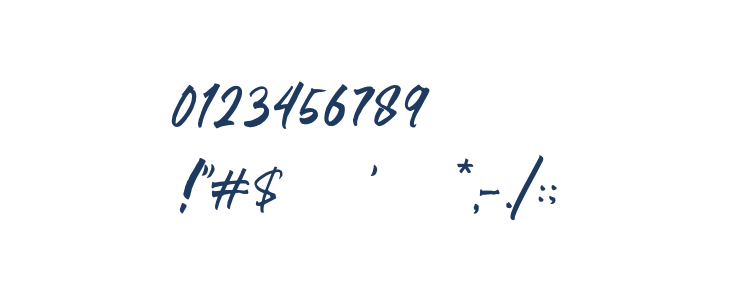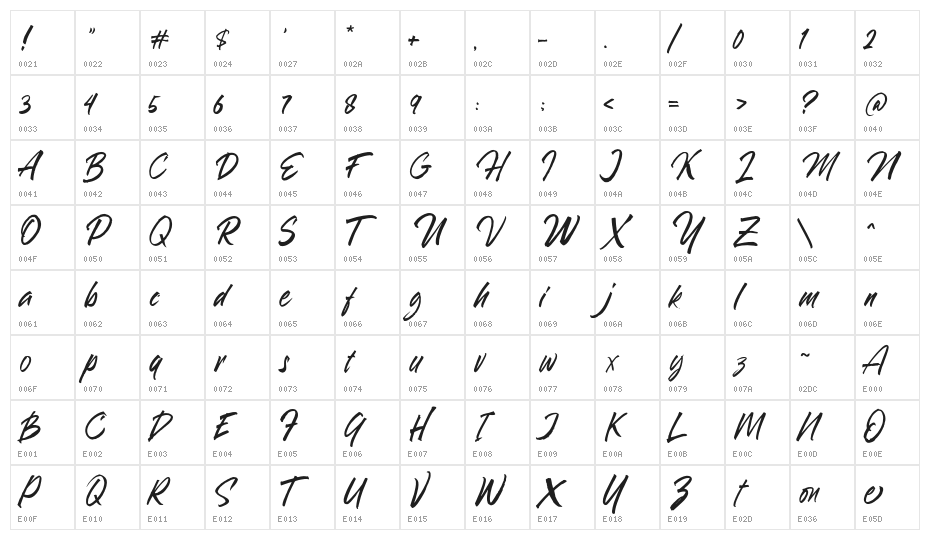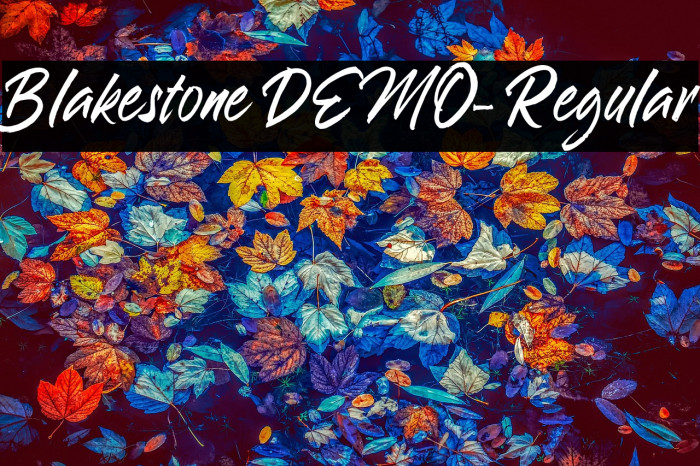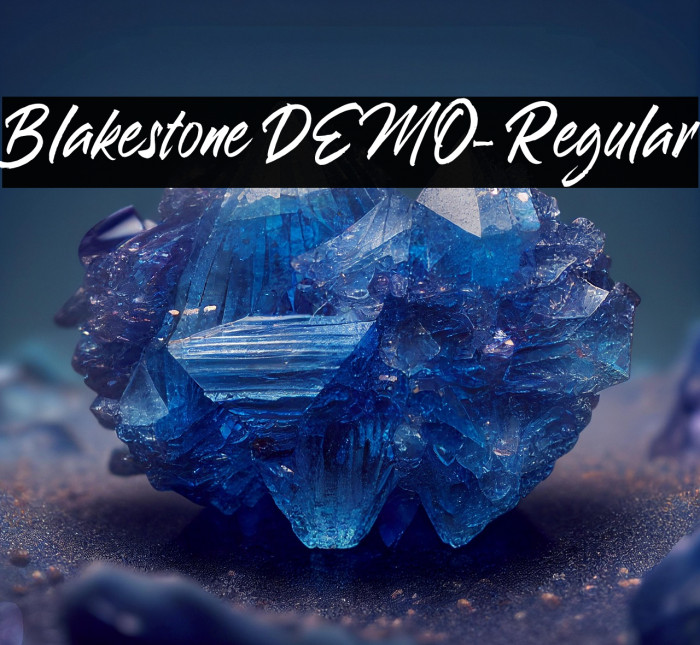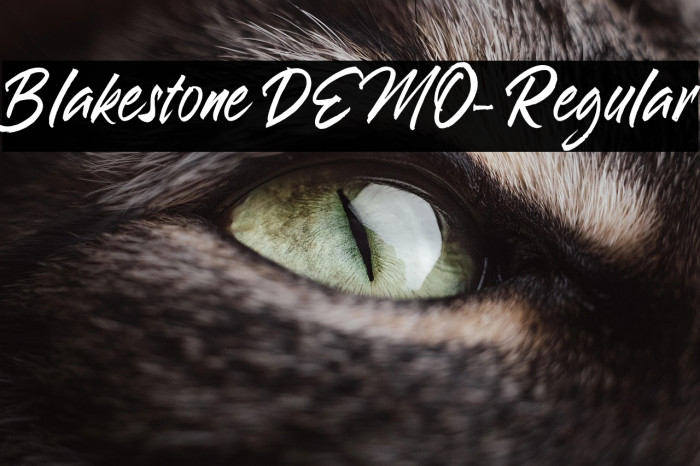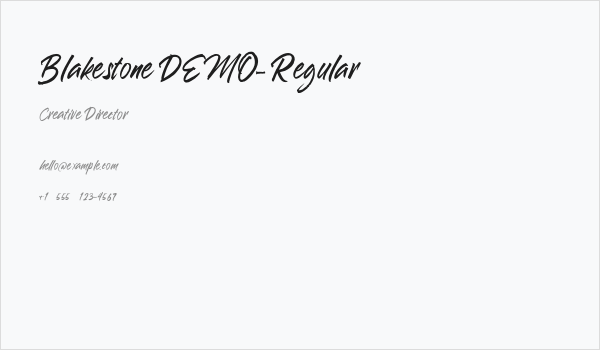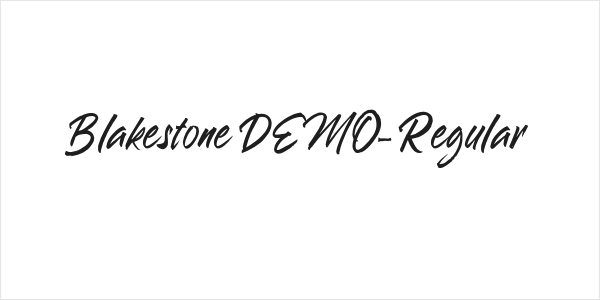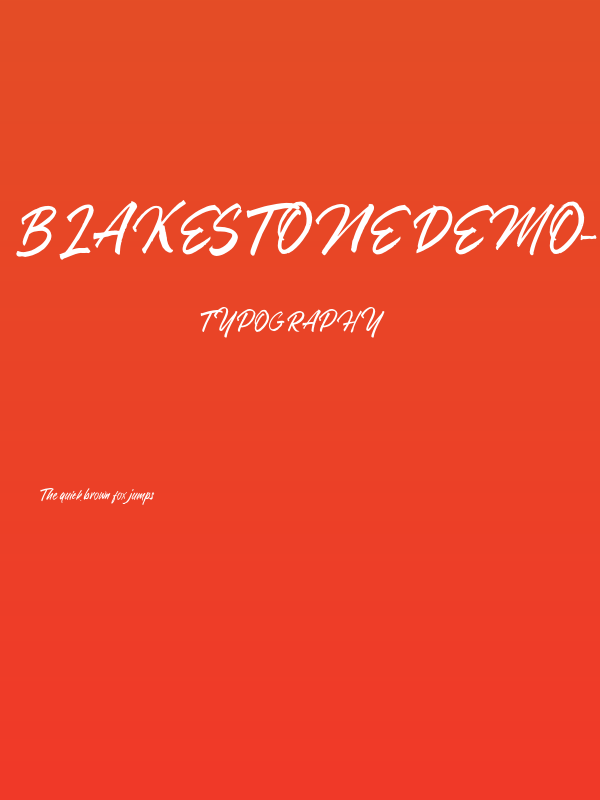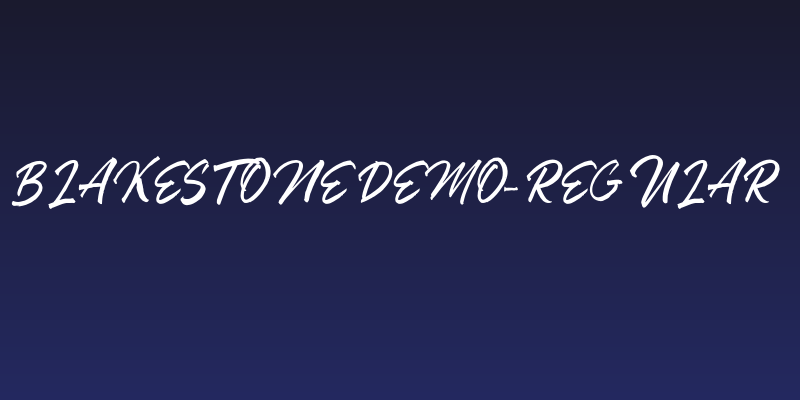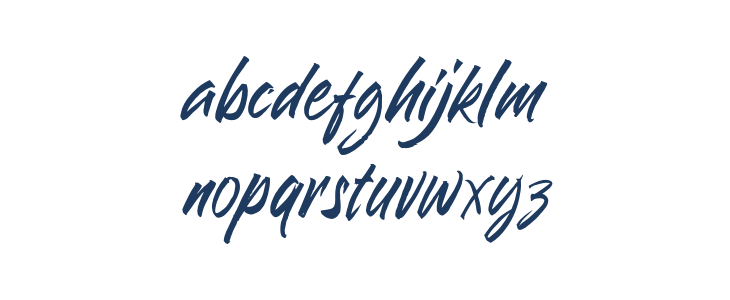
Blakestone DEMO-Regular Font
Blakestone DEMO-Regular Description
This font features a dynamic and expressive style, characterized by its bold, brush-like strokes that convey a sense of movement and energy. The letters are slightly slanted, adding to the fluidity and casual elegance of the design. The uppercase and lowercase letters maintain a consistent style, with smooth curves and sharp edges that enhance readability while retaining a unique artistic flair. The numerals and special characters are crafted with the same attention to detail, ensuring a cohesive look across all text elements. This font is ideal for projects that require a personal touch or a creative, informal vibe.